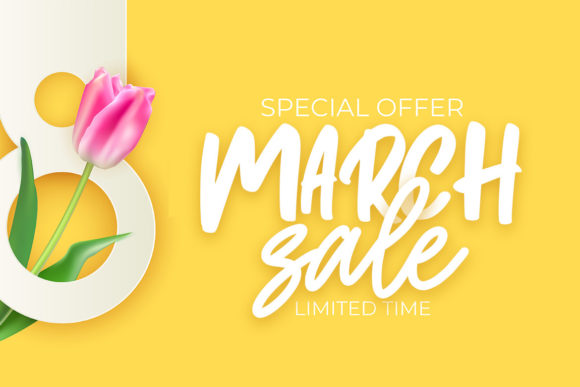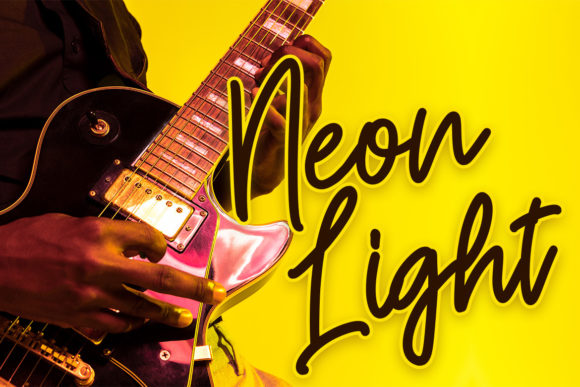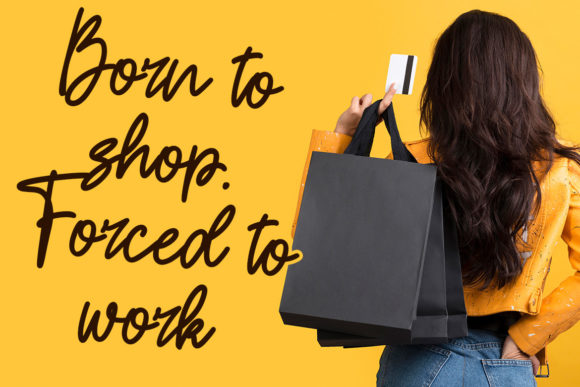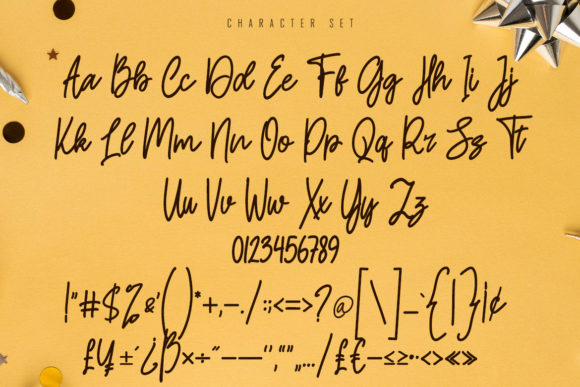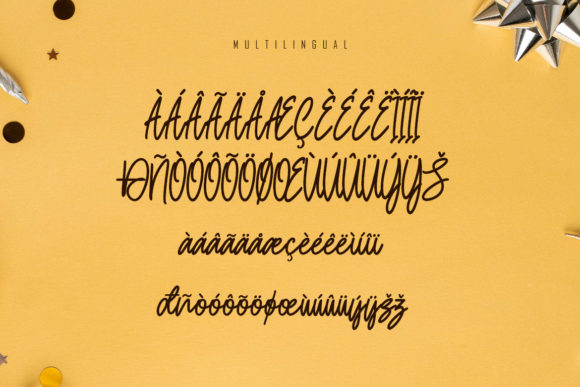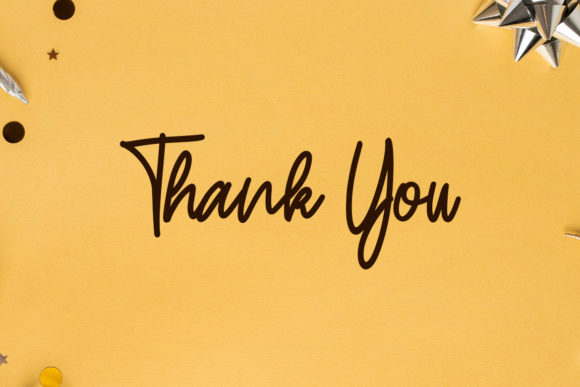
Introduction to Cholane Font
Cholane is a simple and flowing script font that exudes elegance and class.
This font was particularly crafted for those who need a beautiful and refreshing look to their designs .
Key Features of Cholane Font